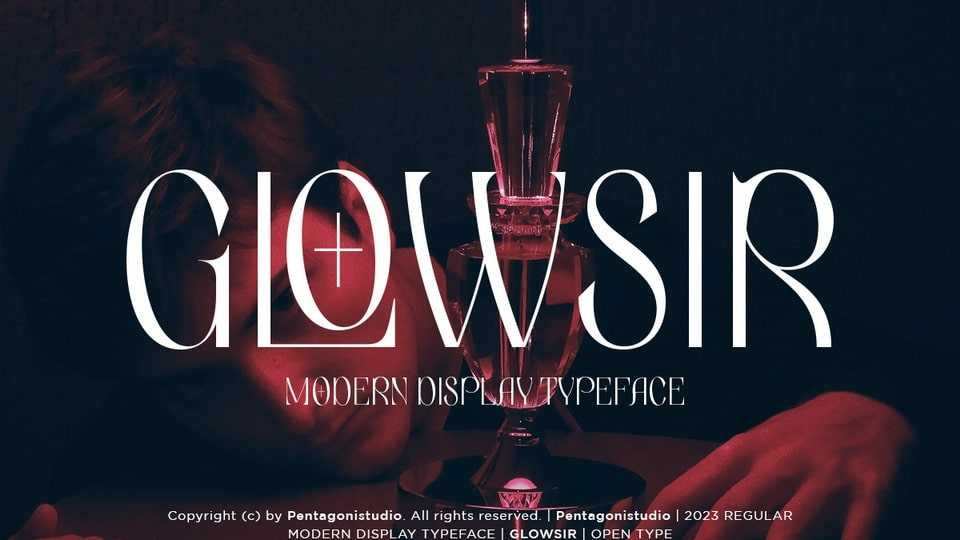
Download Glowsir font, a stylish and luxurious serif typeface that exudes sophistication and class. Perfect for high-end branding, editorial design, and packaging, Glowsir adds a touch of elegance and refinement to your work.
Designer: Pentagonistudio